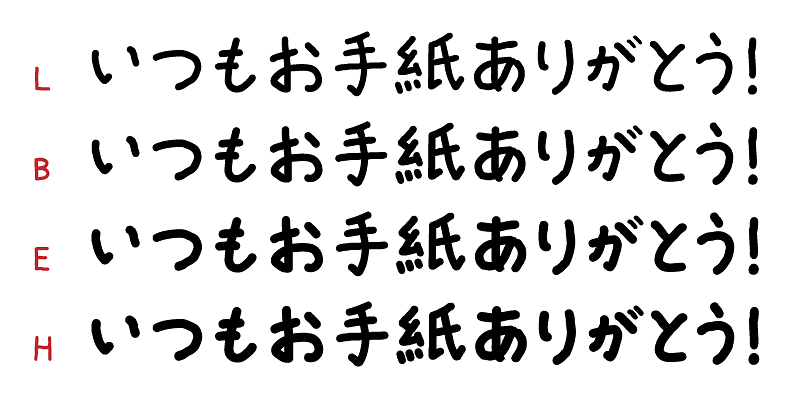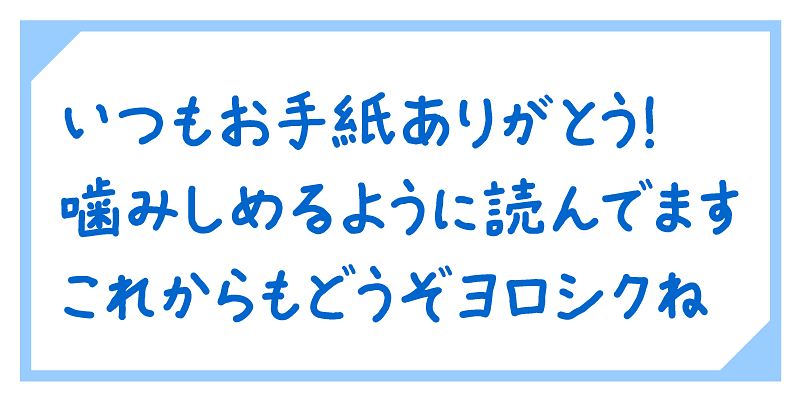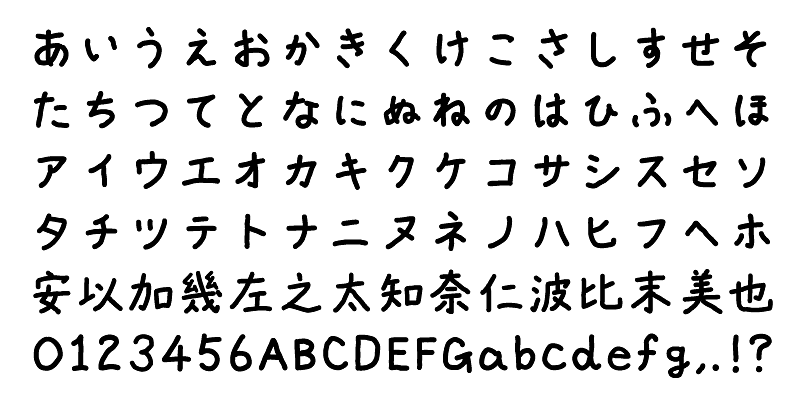
The “takumi shokei font” family is a hand-written font designed using a pen tablet. The balance between the kana characters, designed with awkward shapes, and the visually tight kanji ideographic characters gives the typeface a sharp yet adorable impression. This typeface looks very clear, even at smaller sizes, and has sufficient readability and legibility on both printed pages and display screens. Any message can be conveyed softly and faithfully.